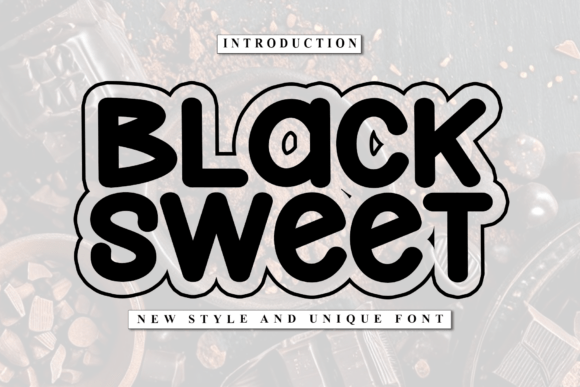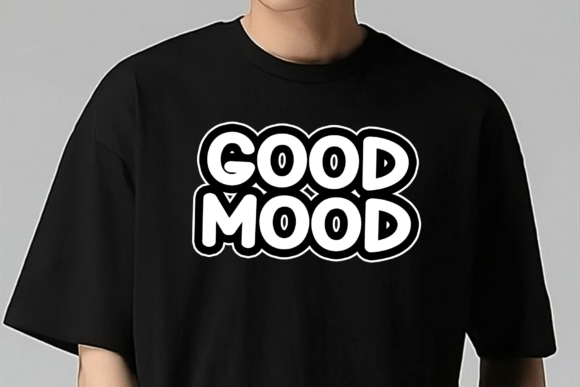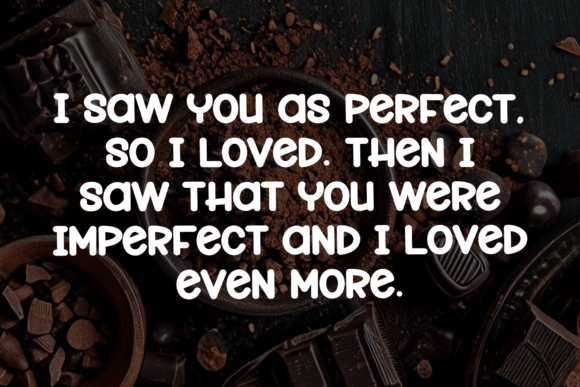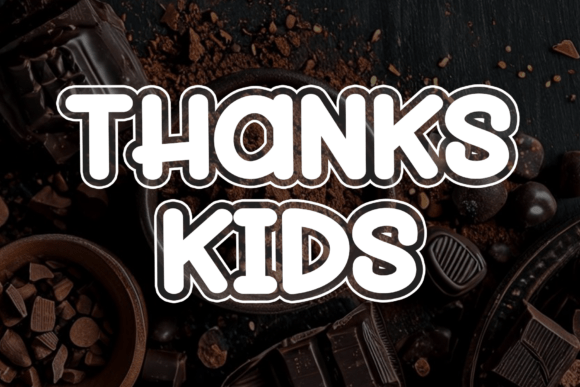
Introducing Black Sweet Font: The Playful Bold Display Font for Creative Designs
Are you looking for a font that can add a touch of sweetness and charm to your designs? Look no further than Black Sweet, a fun and modern display font that blends bold energy with a deliciously playful vibe. In this article, we’ll explore the features and benefits of Black Sweet, and how it can elevate your designs to the next level.
What is Black Sweet Font?
Black Sweet is a bold display font that is designed to grab attention while staying friendly and approachable. Its soft, rounded shapes and thick strokes give every word a sense of sweetness and charm, making it perfect for designs that require a playful and modern touch. Whether you’re designing for food brands, creative products, or cheerful invitations, Black Sweet brings a cozy yet confident personality to your work.
Key Features of Black Sweet Font
- Bold and Playful: Black Sweet is a bold font that is designed to make a statement. Its thick strokes and soft, rounded shapes give it a playful and modern feel that is sure to grab attention.
- Versatile: Black Sweet is a versatile font that can be used for a wide range of designs, including logos, packaging, posters, social media designs, children’s books, and playful branding projects.
- Easy to Read: Despite its bold and playful nature, Black Sweet is easy to read and understand, making it perfect for designs that require a clear and concise message.
- Modern Flair: Black Sweet adds a touch of modern flair to your designs, making it perfect for creative and innovative brands.
Benefits of Using Black Sweet Font
So, why should you use Black Sweet font in your designs? Here are just a few benefits:
- Adds a Touch of Joy: Black Sweet adds a touch of joy and whimsy to your designs, making them more engaging and fun to look at.
- Perfect for Food Brands: Black Sweet is perfect for food brands that want to add a playful and modern touch to their packaging and marketing materials.
- Great for Children’s Books: Black Sweet is a great font for children’s books, as its playful and bold nature is sure to capture young readers’ attention.
- Easy to Pair: Black Sweet is easy to pair with other fonts, making it a great addition to your font library.
Design Ideas Using Black Sweet Font
So, how can you use Black Sweet font in your designs? Here are a few ideas to get you started:
- Logos: Use Black Sweet font to create a bold and playful logo for your brand.
- Packaging: Add a touch of sweetness and charm to your packaging with Black Sweet font.
- Posters: Create eye-catching posters with Black Sweet font that are sure to grab attention.
- Social Media Designs: Use Black Sweet font to add a playful and modern touch to your social media designs.
- Children’s Books: Use Black Sweet font to create engaging and fun children’s books.
In conclusion, Black Sweet font is a fun and modern display font that is perfect for designers and crafters who want to add a touch of sweetness and charm to their designs. Its bold and playful nature, combined with its versatility and ease of use, make it a great addition to any font library. Whether you’re designing for food brands, creative products, or cheerful invitations, Black Sweet font is sure to bring a cozy yet confident personality to your work. So why not give it a try and see how it can elevate your designs to the next level?